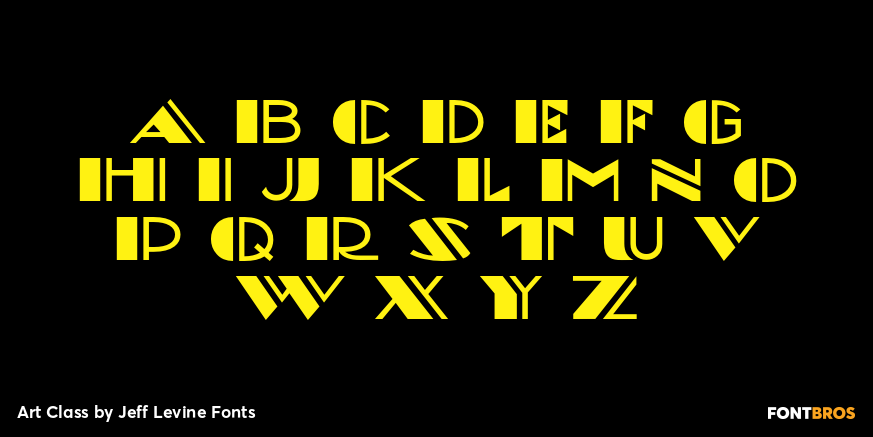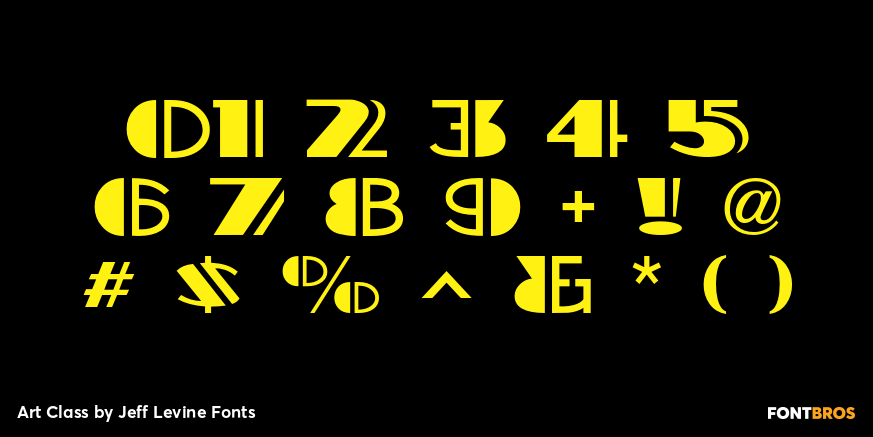
Art Class
Buy NowArt Class JNL was re-created from the titling of a lettering booklet called 'Drawlet Portfolio”, published by the Esterbrook Pen Company in the 1930s.
Drawlet pens were Esterbrook's answer to the popular Speedball lettering pens, and the booklet was an instructional manual on hand lettering with the pen nibs.